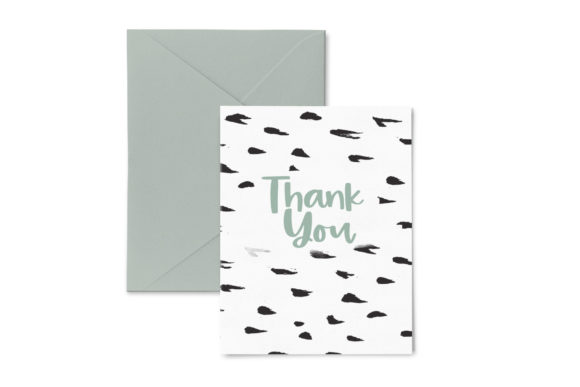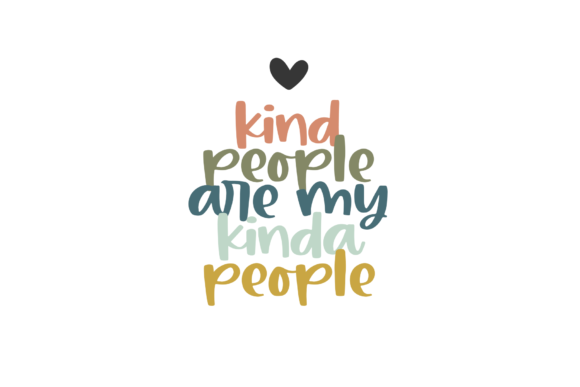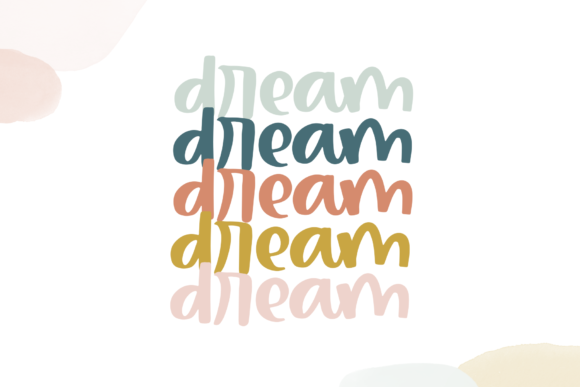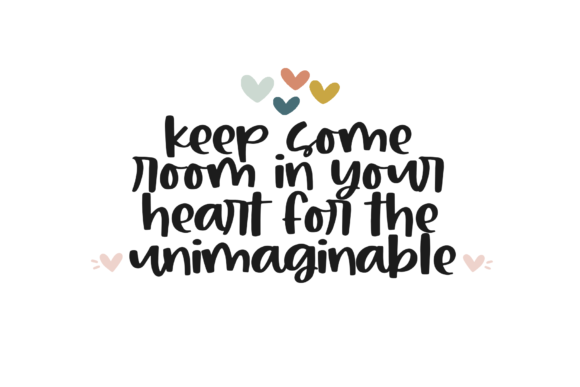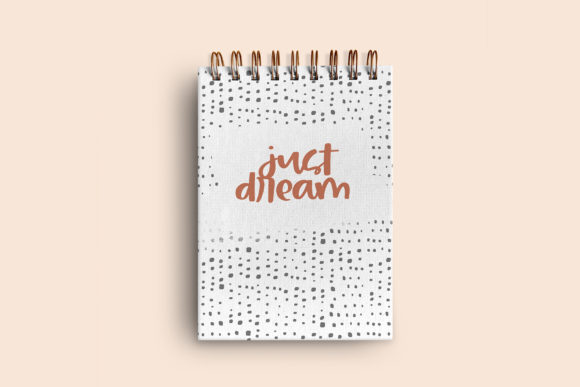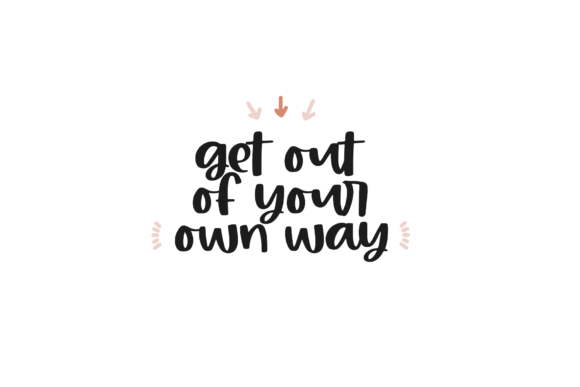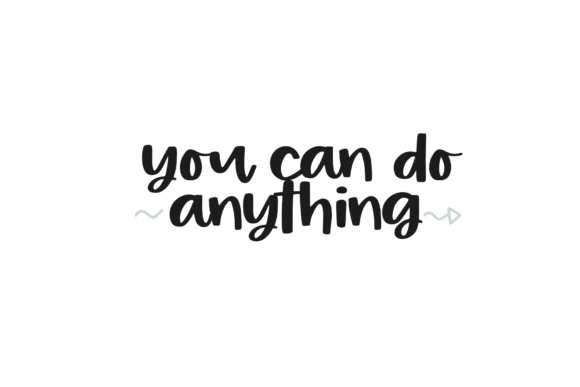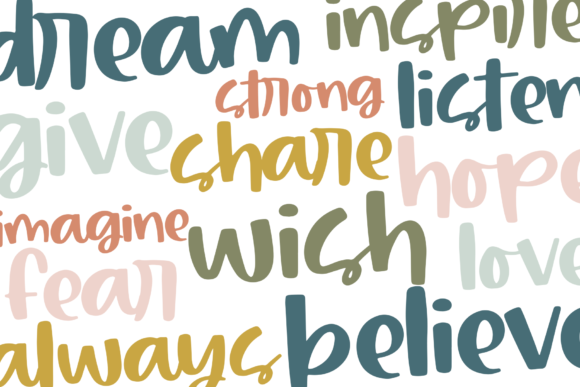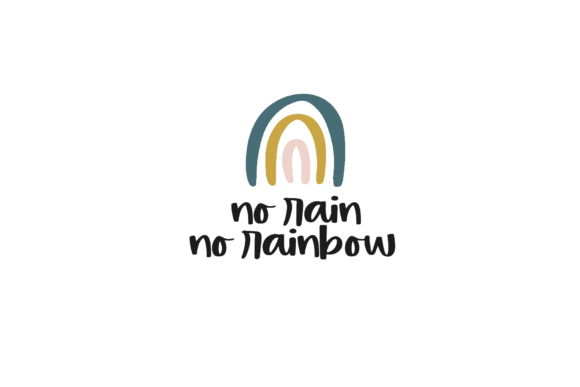
Primrose Font
About Primrose Font
Primrose delivers a quirky and dreamlike script experience that’s great for a wide variety of designs. Its casual beauty will elevate any design to the highest level.